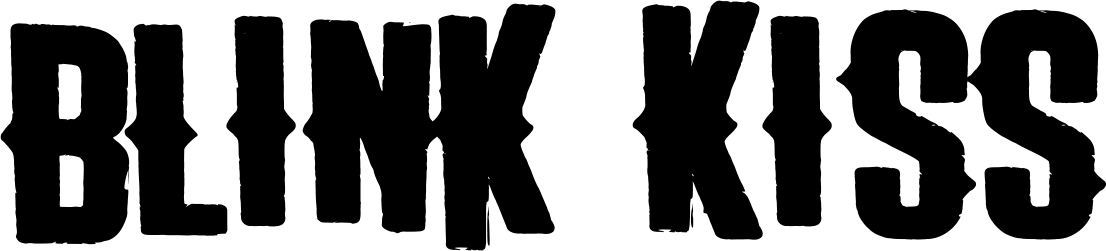
Blink Kiss Font
With the enchanting traits of this Western font, creative and bold letters, get ahead of others at typography. Although Blink Kiss Western font is not included in lowercase, it will certainly make any content stand out w…
With the enchanting traits of this Western font, creative and bold letters, get ahead of others at typography. Although Blink Kiss Western font is not included in lowercase, it will certainly make any content stand out with its fancy classical style. The unique font can be exploited in any successful writing of headers, posters, book covers, branding, TV shows, apparel, or more with its peerless old style.